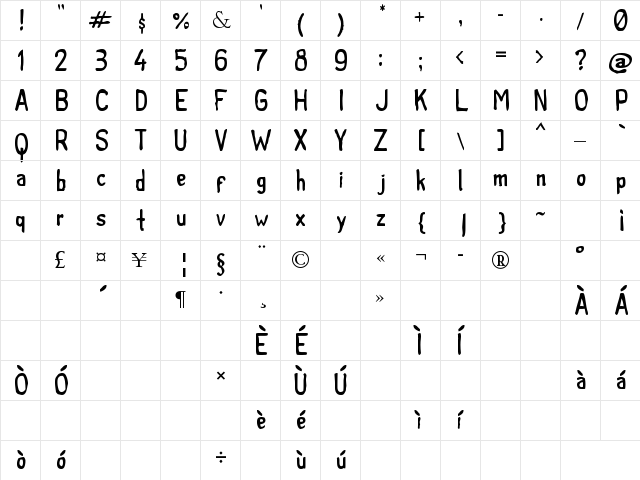
tintilla Regular
Design Context for tintilla Typeface
tintilla takes a measured approach to typography — its balanced proportions and neutral character make it a reliable workhorse for both digital and print work.